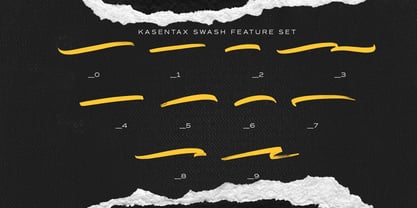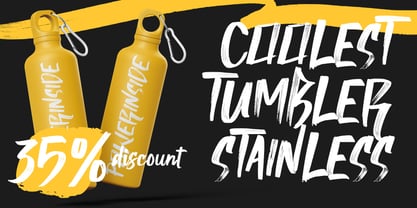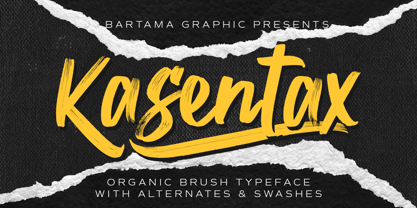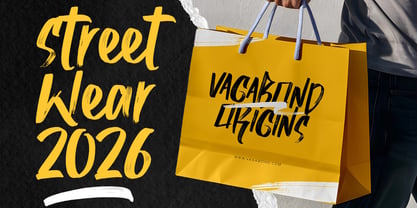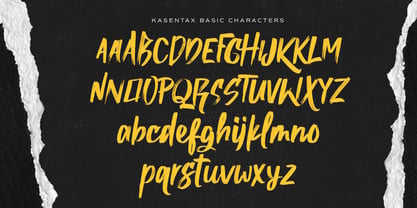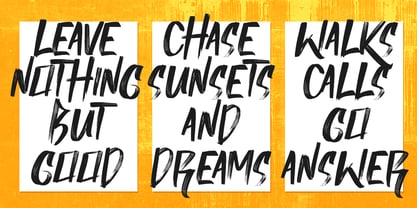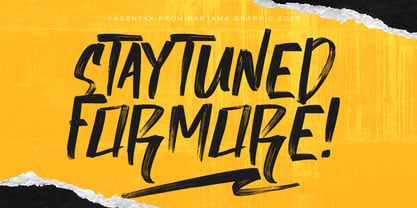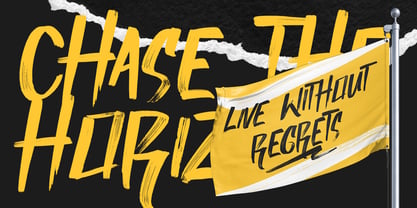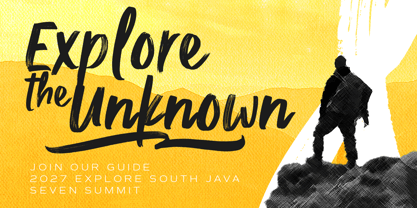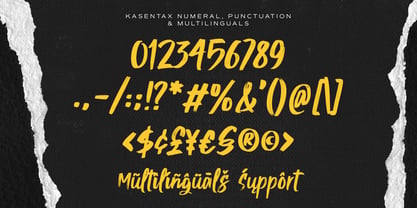
Kasentax
by Bartama Graphic
The Kasentax Font Family was designed by Rizki Akbari Utama and published by Bartama Graphic. Kasentax contains 1 styles. More about this family
Kasentax brush font brings a sense of creativity, authenticity, and energy to any design you create. With its organic texture and natural imperfections, it adds a handcrafted feel that stands out in both digital and print formats. Perfect for branding and logo, social media, posters, advertisements, apparel, invitations, and many more.